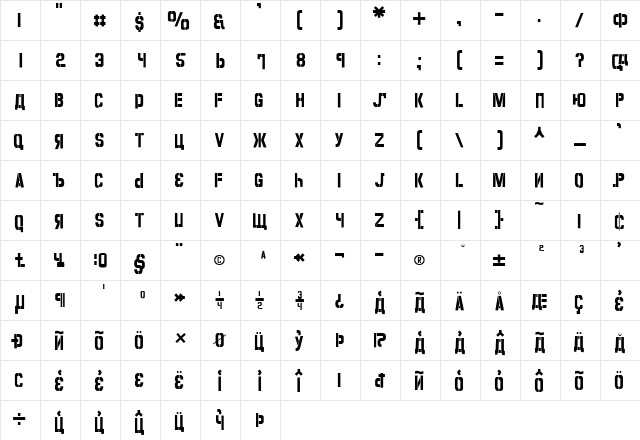
RadioFlat Medium
| Foundry | Designed by Elliott Peter Earls |
Design Context for RadioFlat Typeface
RadioFlat offers clean, dependable letterforms without strong stylistic allegiance, making it a practical choice for designers who need flexibility.